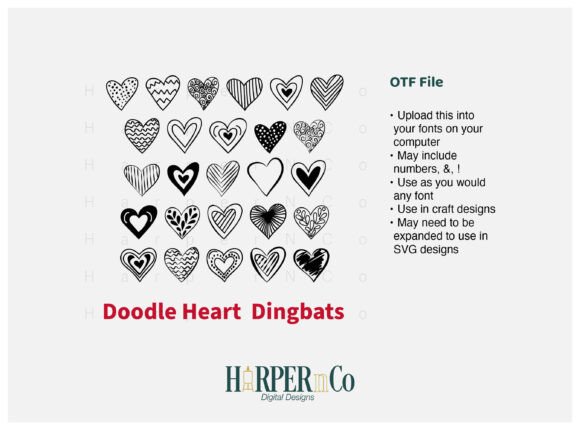
Doodle Heart Font: The Ultimate Symbol of Love and Creativity
Are you looking for a unique and creative way to express love and affection in your designs? Look no further than the Doodle Heart Dingbat Font. This charming collection of 26 hand-drawn hearts is perfect for designers, crafters, and anyone looking to add a touch of heart-themed artistic flair to their projects. In this article, we’ll explore the essence of the Doodle Heart Font and how it can bring love to life in every design.
The Charm of Doodle Heart Font
The Doodle Heart Font is a one-of-a-kind collection of hand-drawn hearts, each with its own unique doodle-style aesthetic. The font features 26 individual hearts, carefully crafted to bring a touch of whimsy and playfulness to any design. Whether you’re planning to create something extraordinary for Valentine’s Day or simply want to add a romantic touch to an everyday project, this font is sure to impress.
The Doodle Heart Font is a dream come true for designers and crafters looking to add a touch of heart-themed flair to their projects. Whether you’re creating Valentine’s Day cards, wedding invitations, or simply want to add a romantic touch to a blog post or social media graphic, this font is sure to inspire.
For designers, the Doodle Heart Font offers a unique opportunity to create custom illustrations and graphics that are sure to stand out. The font can be used to create everything from custom icons and graphics to full-scale illustrations and designs.
For crafters, the Doodle Heart Font is a great way to add a personal touch to handmade projects, such as scrapbook pages, journal entries, and card making. The font can be used to create custom titles, captions, and embellishments that add a touch of whimsy and personality to any project.
Bringing Love to Life in Every Design
The Doodle Heart Font is more than just a font – it’s a way to bring love and creativity to life in every design. Whether you’re creating a romantic gesture or simply want to add a touch of personality to a design, this font is sure to inspire.
With the Doodle Heart Font, you can create designs that are truly unique and eye-catching. The font’s hand-drawn aesthetic and doodle-style charm make it perfect for creating custom illustrations and graphics that are sure to stand out.
Tips and Inspiration for Using the Doodle Heart Font
Here are a few tips and inspiration ideas for using the Doodle Heart Font in your designs:
- Use the font to create custom Valentine’s Day cards and invitations that are sure to impress.
- Add a touch of whimsy to your blog posts and social media graphics with custom illustrations and graphics.
- Use the font to create custom titles and captions for handmade projects, such as scrapbook pages and journal entries.
- Experiment with different colors and styles to create unique and eye-catching designs.
| Font Name | Doodle Heart Font |
| Author | HarperNCo |
The Doodle Heart Font is a unique and creative way to express love and affection in your designs. With its charming hand-drawn aesthetic and doodle-style charm, this font is perfect for designers, crafters, and anyone looking to add a touch of heart-themed artistic flair to their projects. Whether you’re planning to create something extraordinary for Valentine’s Day or simply want to add a romantic touch to an everyday project, the Doodle Heart Font is sure to inspire.